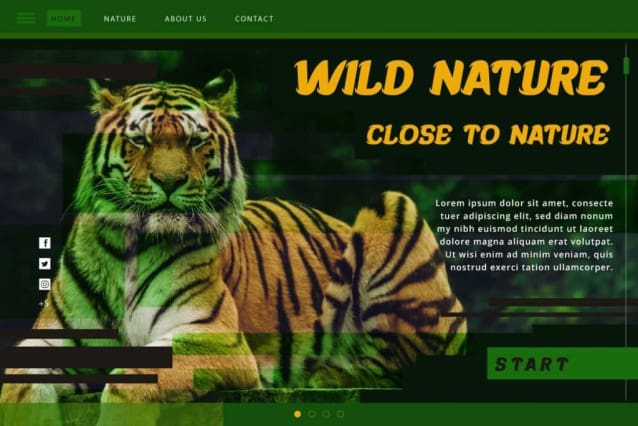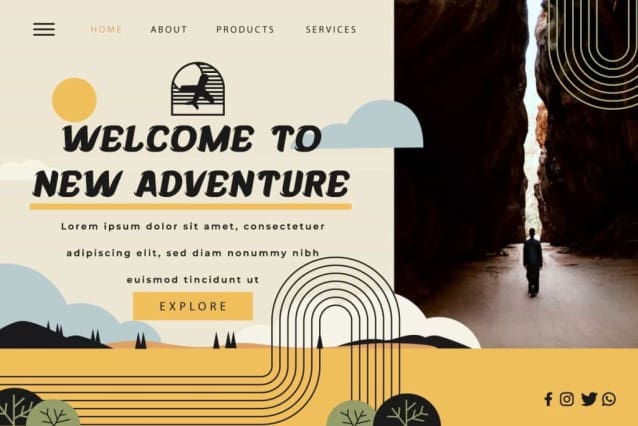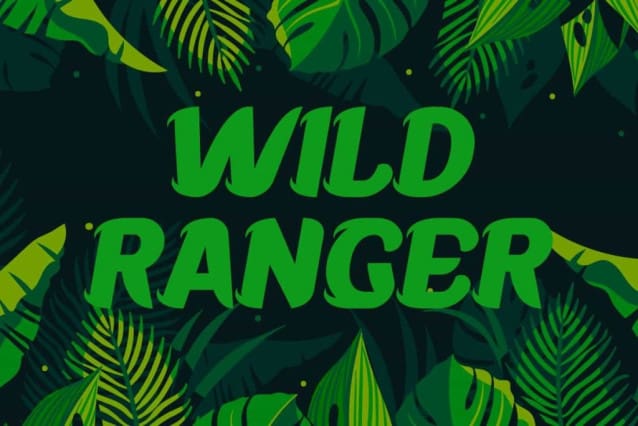
Wild Ranger Font
Wild Ranger Font is a fun, bold and unique display font inspired from games and zoo movies. This font can make your design look bold and read clearly to convey the message within. It will suits many designs, such as brochure, cover, custom design, gift box, invitation, label, menu, poster, product packaging, quote, screen printing, signage, stationery, website, and more!
Wild Ranger Font includes full set of ALL CAPS for Uppercase and Lowercase Basic Characters, Numerals, and Punctuation. This font is inspired by the wild and strong nuances of nature, so it will be suitable for many industries, such as advertising, café, event or festival, fashion, furniture, handicraft, kids stuff, sports, etc.